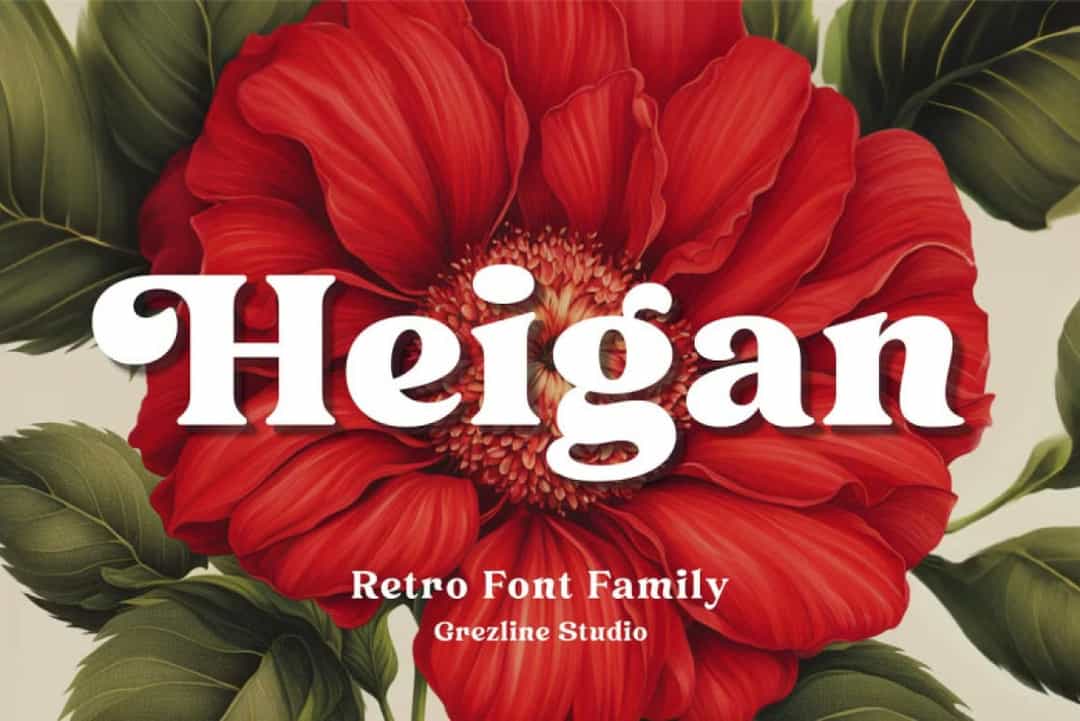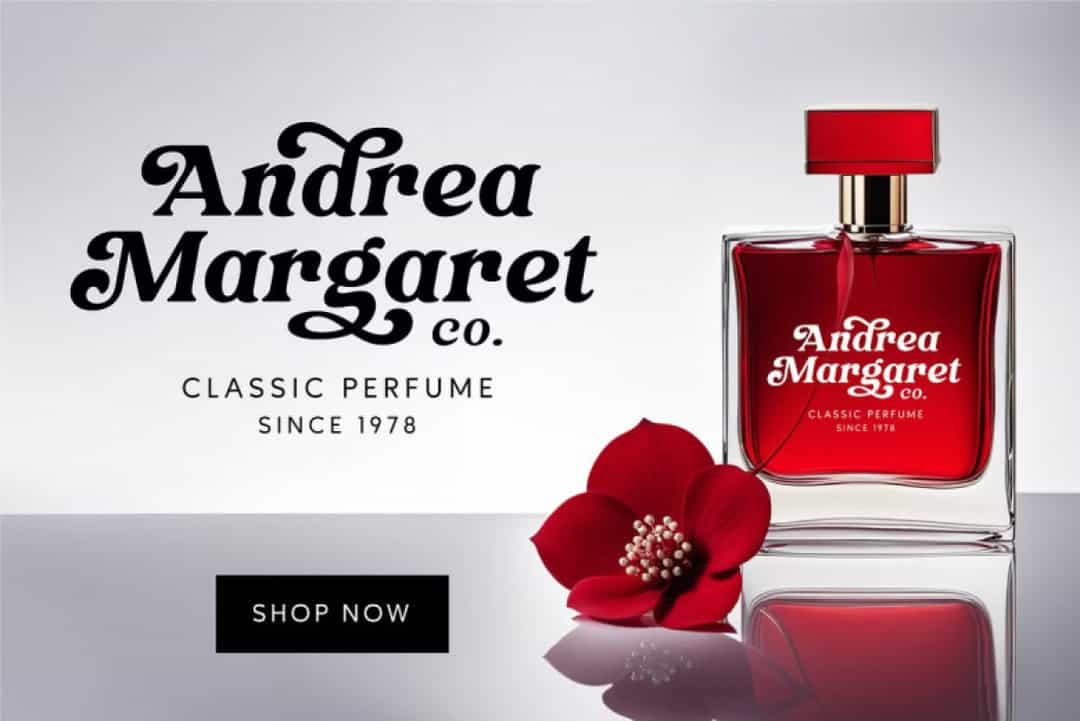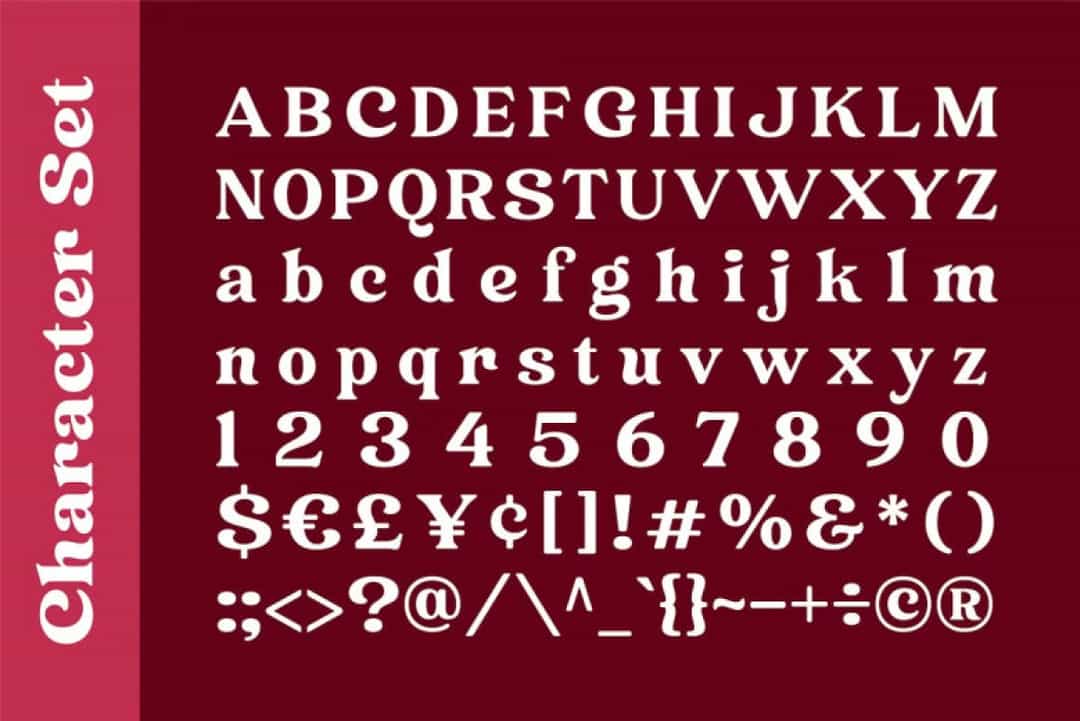
Heigan font family adds an air of nostalgia and timeless elegance in any design project, while also giving off an energetic and playful vibe. The powerful letters add depth and strength, giving an engaging appearance.